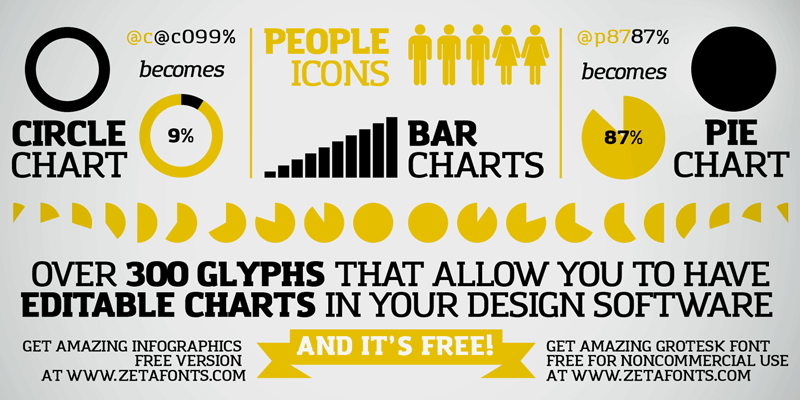
Tired of the hours spent calculating and drawing pie charts for your info graphics? AMAZING INFOGRAPHICA allows you to TYPE DIRECTLY INFOGRAPHICS and CHARTS keeping them EDITABLE! This completely FREE font TRANSFORMS DATA INTO CHARTS thanks to open type ligatures - try it and use it for all your commercial and noncommercial projects! And if you like it, try AMAZING INFOGRAPHICA PRO and all the other fonts in the AMAZING GROTESK FAMILY on our ZETAFONTS WEBSITE: http://www.zetafonts.com/amazing-grotesk And check out all our other fonts on dafonts: http://www.dafont.com/it/zetafonts.d1538 |